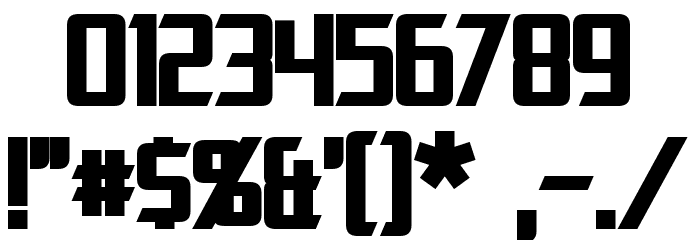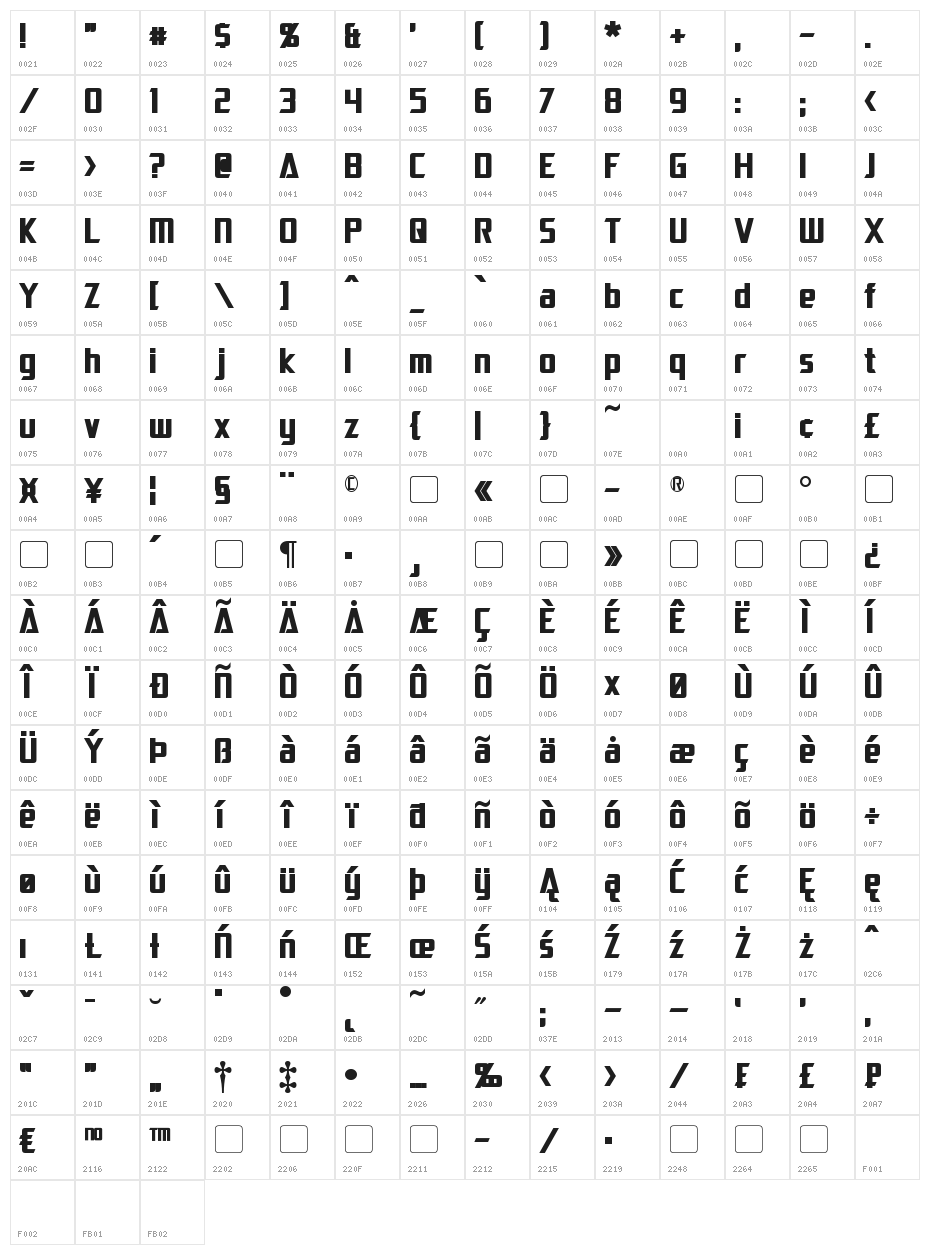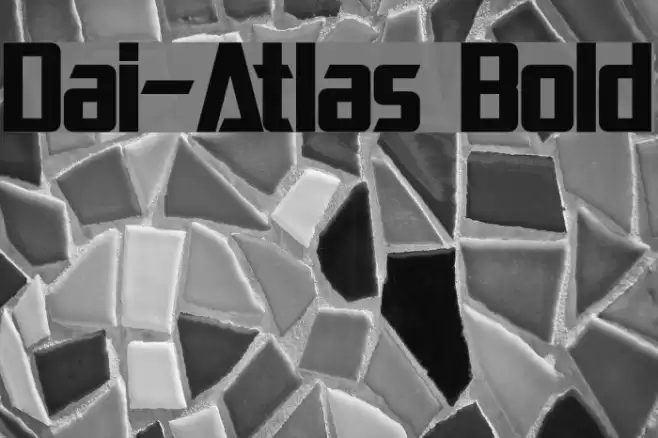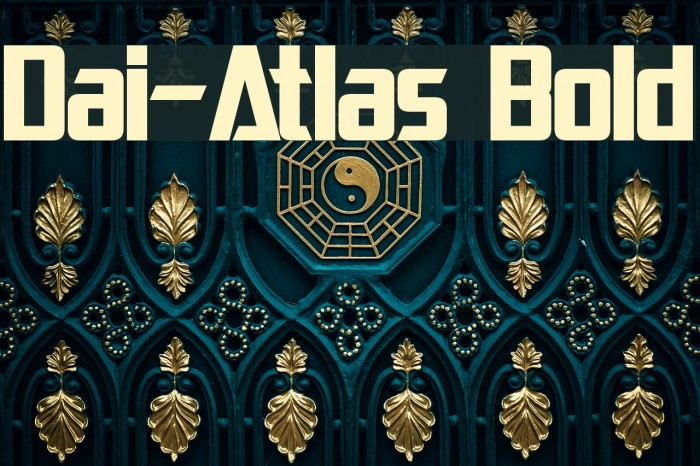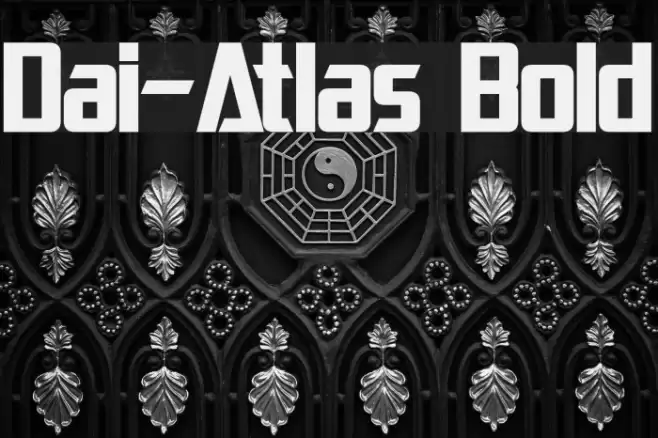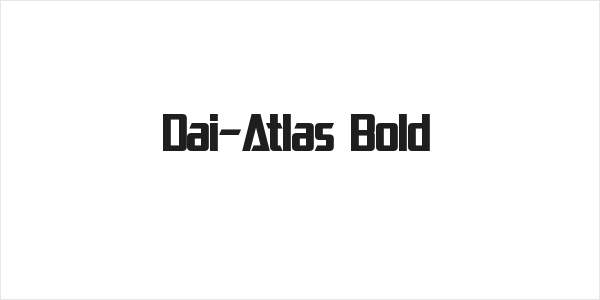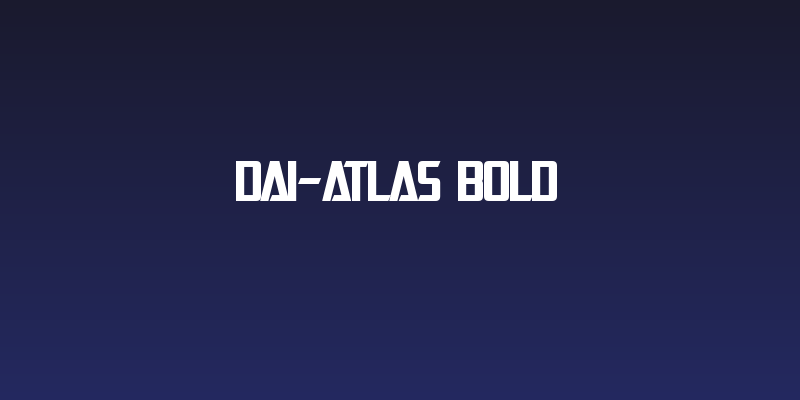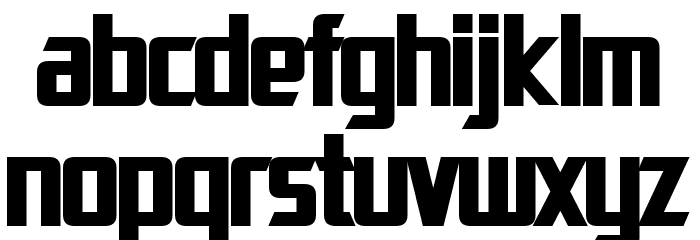
Dai-Atlas Bold Font
Dai-Atlas Bold Description
This bold, geometric typeface features strong, angular lines and a modern aesthetic. The uppercase letters are characterized by their sharp edges and uniform width, creating a sense of stability and strength. The lowercase letters maintain the same geometric style, with a slightly more compact form. The numerals are consistent with the overall design, offering a bold and clear appearance. Special characters are designed to match the font's bold and angular style, ensuring cohesion across all text elements. This typeface is ideal for projects that require a strong visual impact and a contemporary feel.